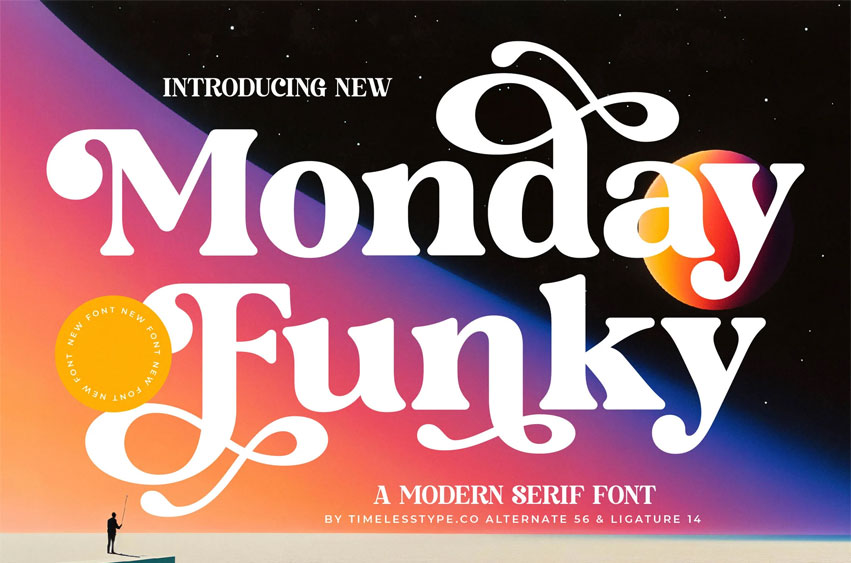
Monday Funky Font
Monday Funky Font is a bold modern serif with playful vintage energy, blending chunky curves, expressive swashes, and refined contrast to deliver a fresh yet nostalgic personality in every letter.
Designed for creators who want a statement-making display typeface, Monday Funky brings dynamic rhythm and editorial charm to branding, posters, album covers, packaging, social media graphics, and retro-futuristic layouts. With 56 stylistic alternates and 14 unique ligatures, this font gives designers full creative flexibility—perfect for projects that demand style, attitude, and a standout typographic identity.